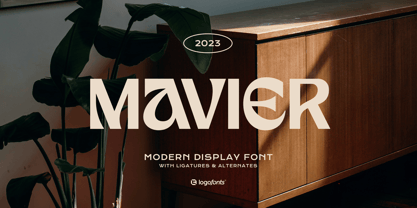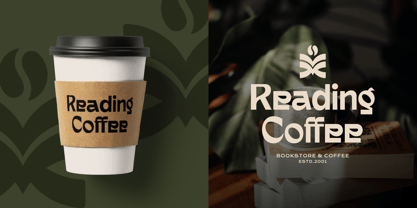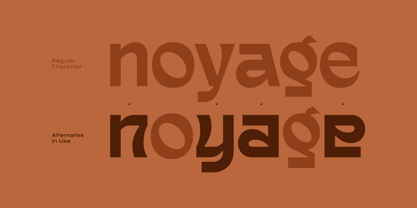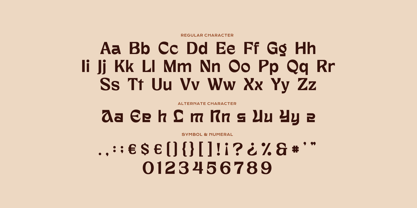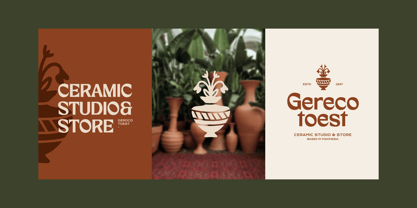
Mavier
La famille de polices Mavier a été conçue par Anna Safitri et publiée par Logofonts. Mavier contient 1 styles. En savoir plus sur cette famille
Mavier is a bold and innovative futuristic typeface that redefines the boundaries of modern design. With its clean, angular lines, minimalistic approach, and unique letterforms, this typeface channels the spirit of tomorrow. Perfect for high-tech brands, digital interfaces, and sci-fi-inspired projects, Mavier creates an unmistakable visual identity that feels ahead of its time. Its distinctive style blends geometric precision with dynamic energy, making it a versatile choice for both display typography and branding. Whether you’re designing a cutting-edge website, a futuristic logo, or immersive digital experiences, Mavier brings a sleek, modern edge to any creative project.